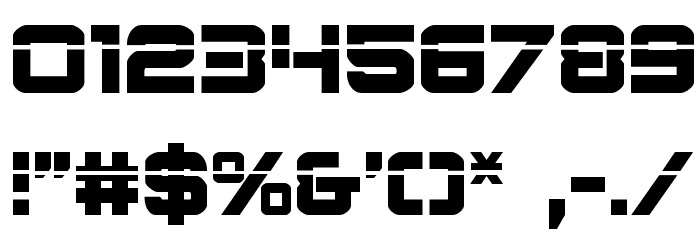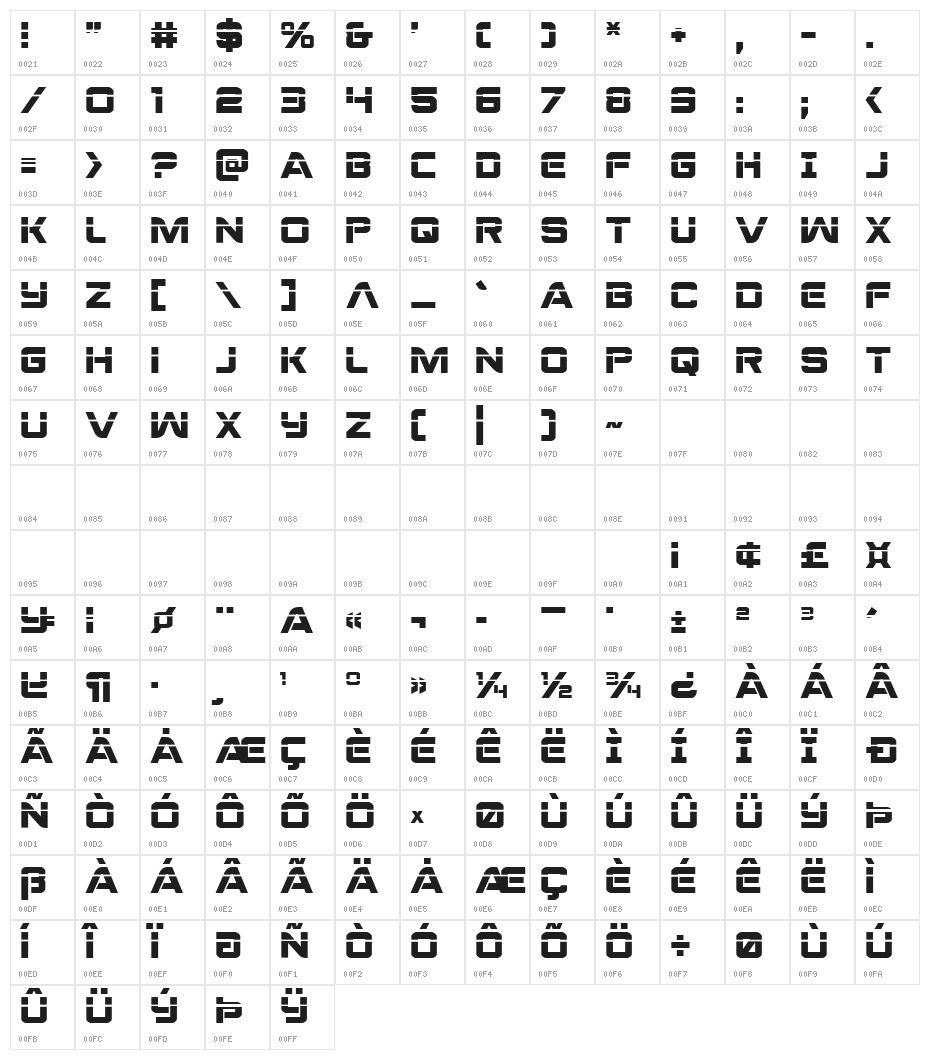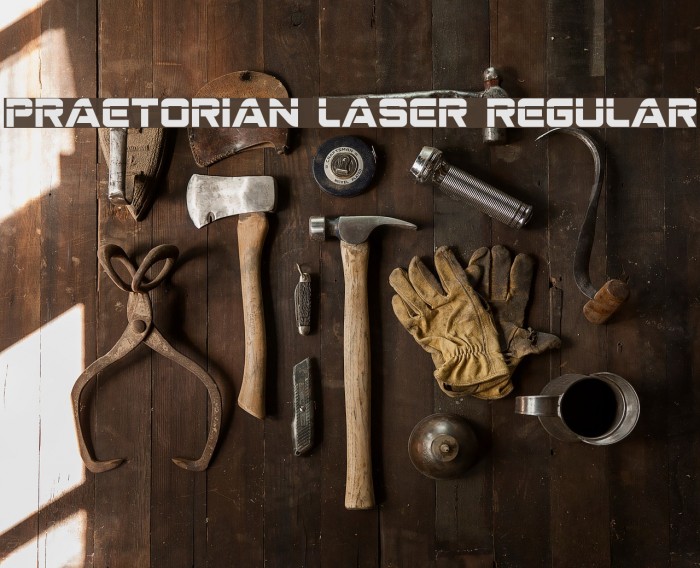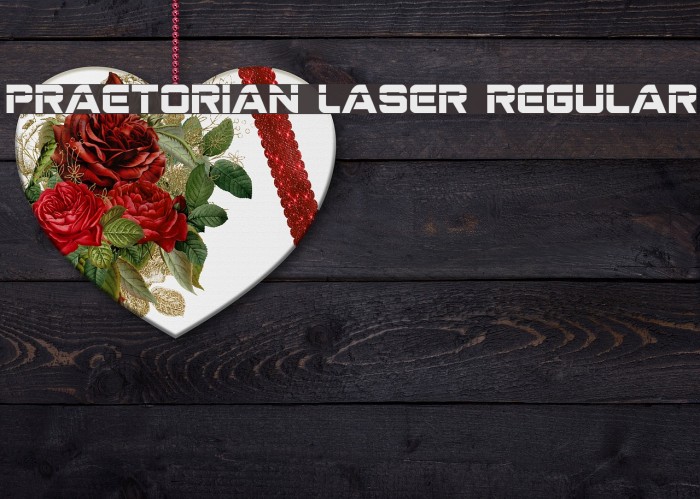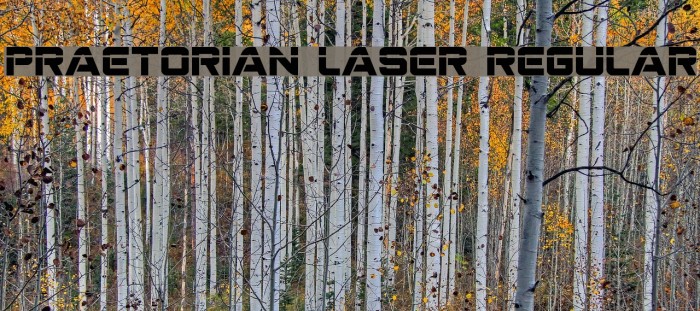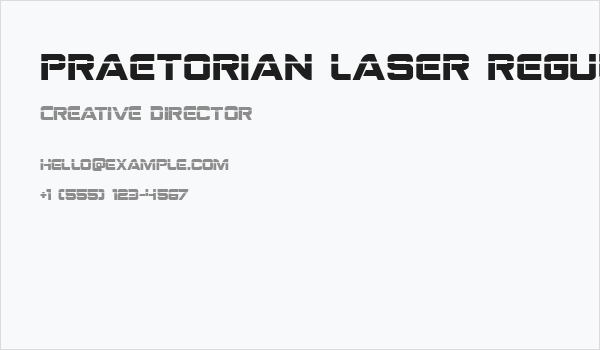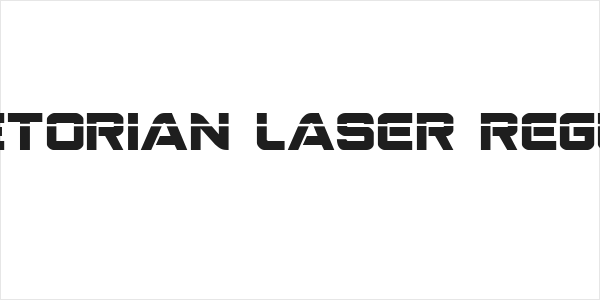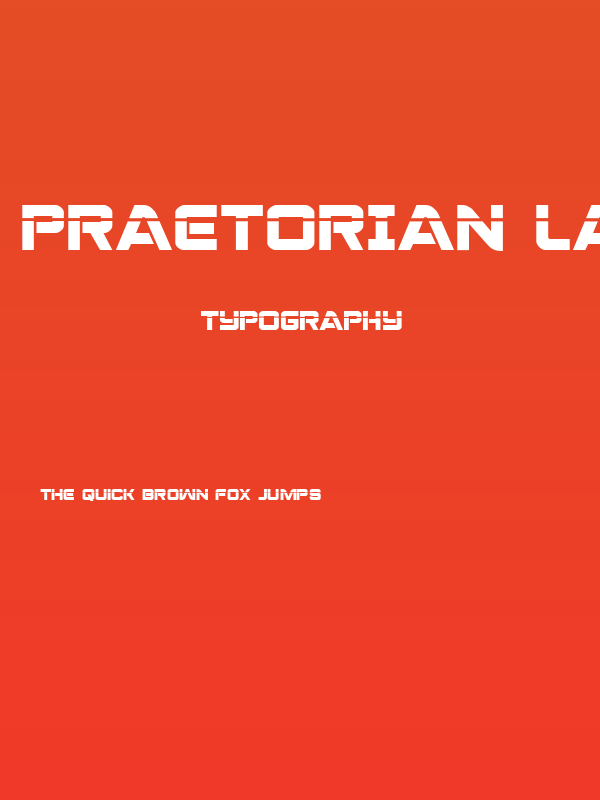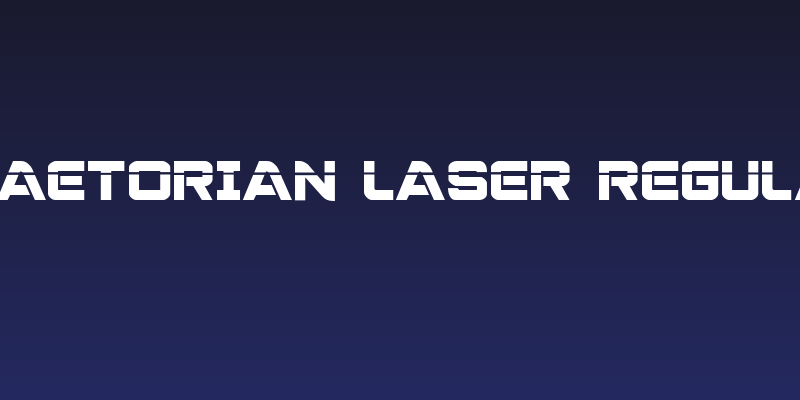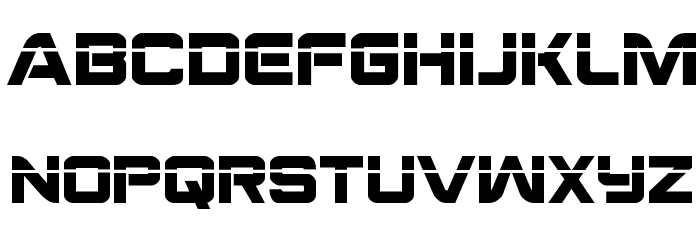
Praetorian Laser Regular Font
Praetorian Laser Regular Description
This font features a bold, futuristic design with a strong geometric influence. The characters are constructed with sharp angles and straight lines, giving it a distinctly modern and industrial feel. The uppercase letters are particularly striking, with a uniform height and width that creates a cohesive and balanced appearance. The numbers and special characters maintain this aesthetic, ensuring consistency across all elements. The font's design is both eye-catching and functional, making it suitable for a variety of applications where a bold statement is desired.
| Proposed Projects | Ideal for technology branding, sci-fi movie posters, video game titles, and modern advertising campaigns. |